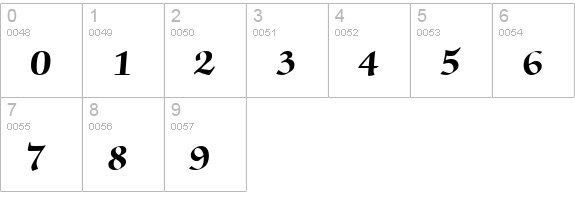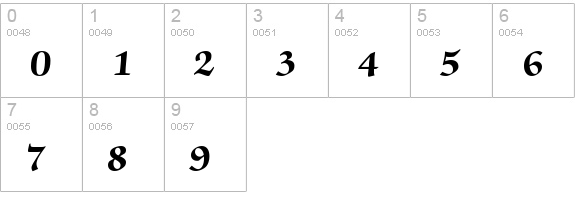
Zapf Chancery Bold BT is a strong, high-contrast variant in the Zapf typeface family \xE2\x80\x94 well suited to headlines, attention-grabbing titles, and strong calls-to-action.
Zapf Chancery Bold BT font is a timeless and elegant typeface designed by renowned typographer Hermann Zapf. Its graceful curves and delicate strokes exude sophistication and charm, making it perfect for formal invitations, certificates, and other high-end designs. The bold weight of the font commands attention while maintaining a sense of refinement. What sets Zapf Chancery Bold BT font apart is that it is not only beautiful but also versatile. Whether used for titles, headlines, or body text, this font adds a touch of class to any project. Its classic look makes it a favorite among designers looking to elevate their work with a touch of elegance. And the best part? Zapf Chancery Bold BT font is available for free download at FontsMarket.com. Now you can easily access this premium font without breaking the bank. Don't miss out on the opportunity to enhance your designs with this exquisite typeface. Download Zapf Chancery Bold BT today and elevate your projects to the next level.